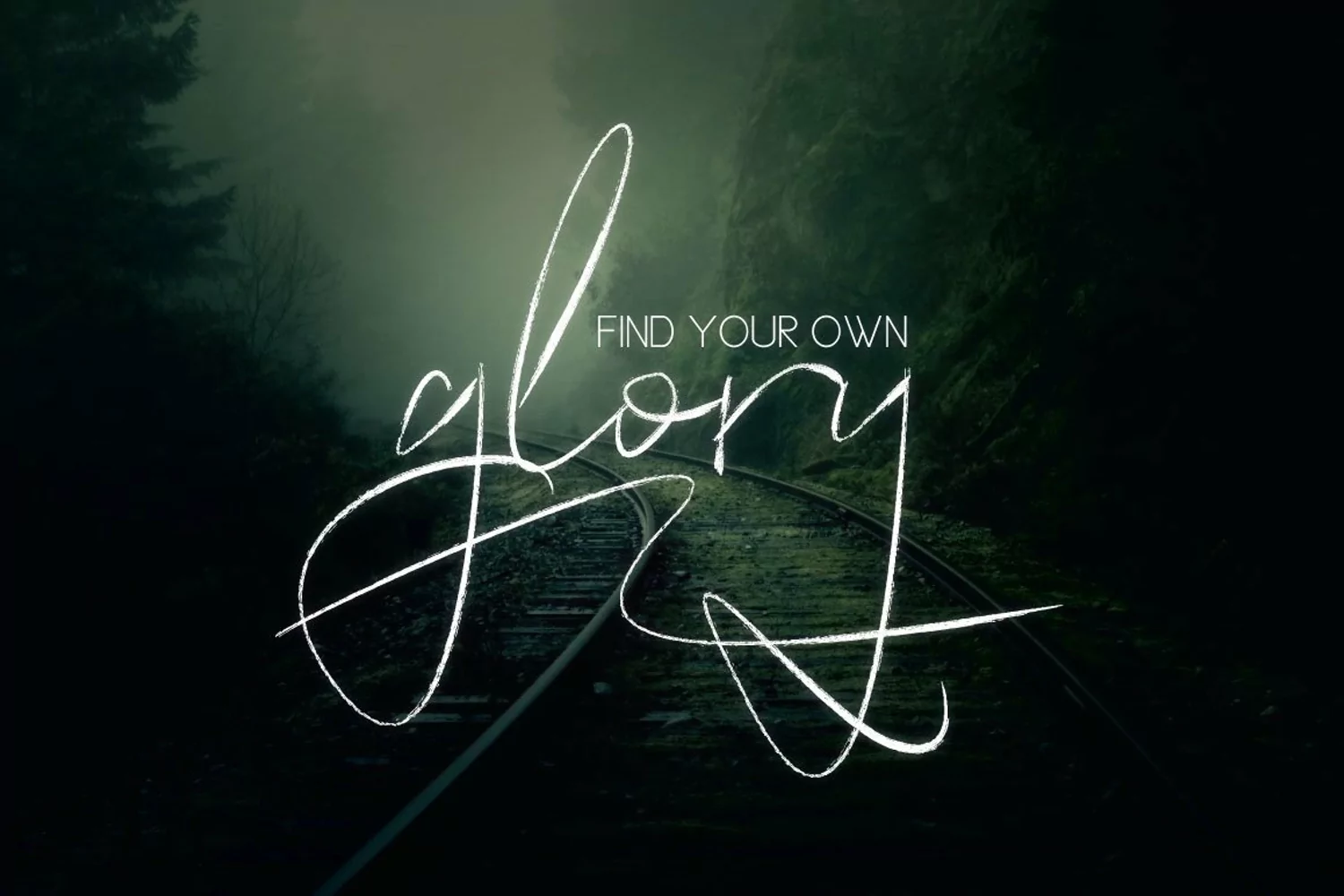
Presenting an imperfect brush strokes Fortescue Script Typeface! A bouncy script hand-brushed font, designed with branding in mind and love ;)
Handwritten upper and lowercase characters, numerals, and punctuations. Don't forget of completely new set of the lowercase alternative to avoid letters looking the same each time and or try a different word shape...!!! Not finish yet...Also with set of hand-drawn swashes, the perfect finishing touch to underline your Fortescue text ;)
Fortescue is perfect for logos, websites, invitations, greeting cards, magazines, business cards, packaging and many more! Be a perfect professional in a minute and start creating modern designs...